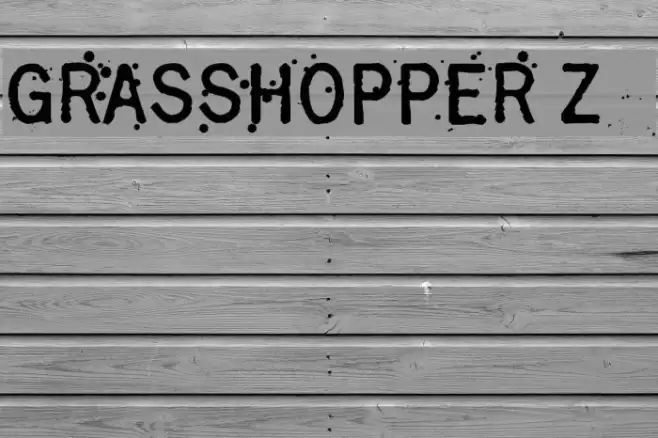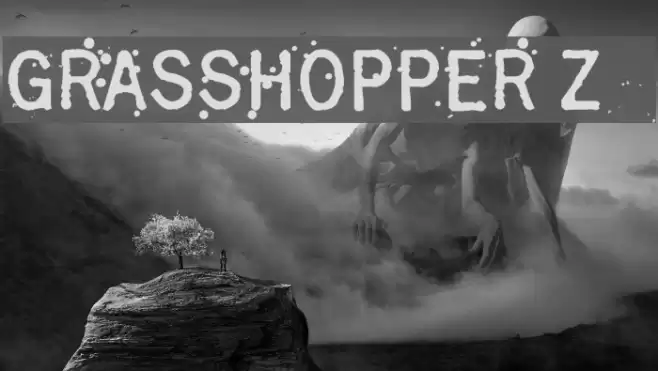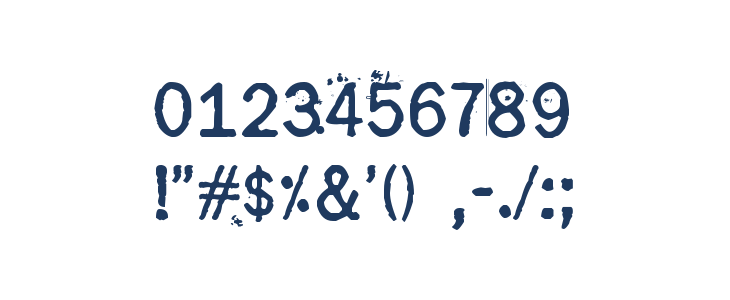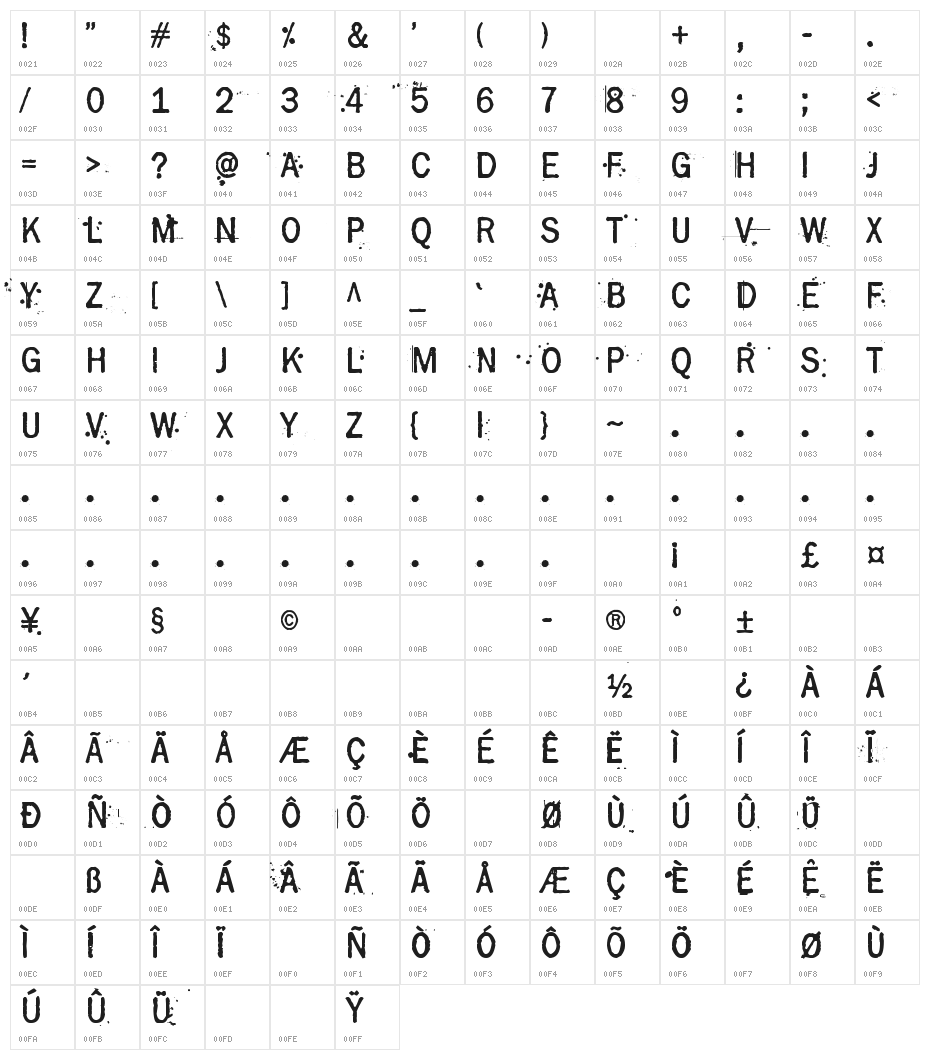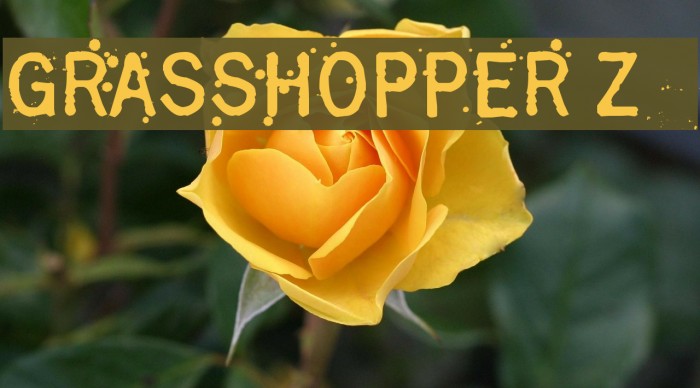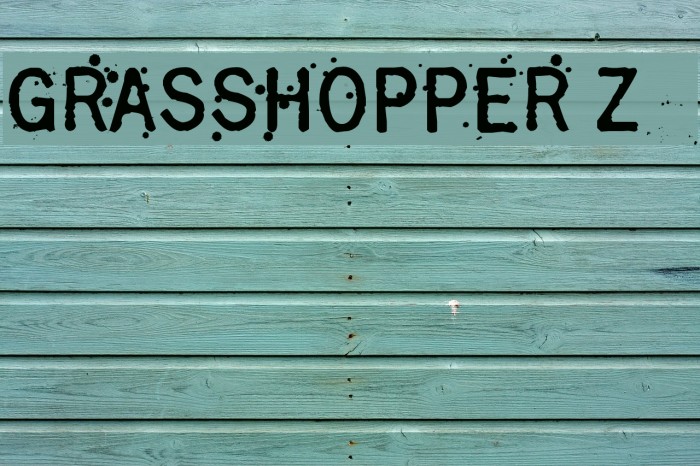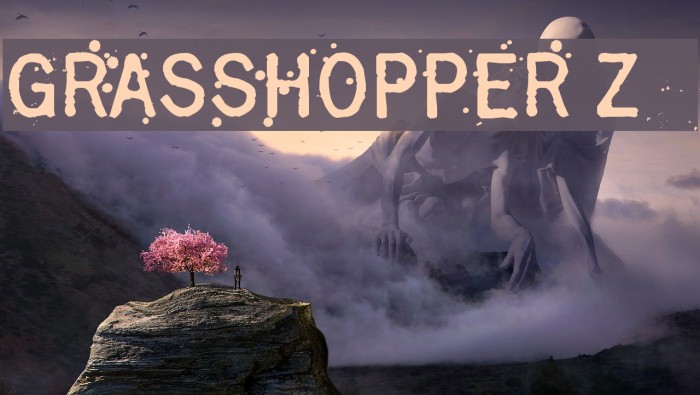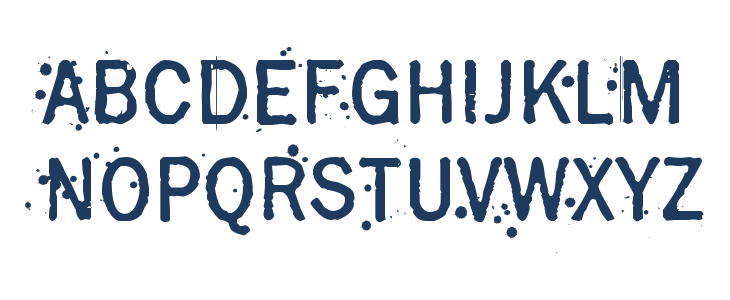
Grasshopper Z Font
Grasshopper Z Description
This font exhibits a distressed, grunge style with a rough, textured appearance. The characters are bold and impactful, featuring irregular edges and a worn-out look that adds a vintage, industrial feel. The uppercase letters are consistent in height, while the numbers and special characters maintain the same rugged aesthetic. The font's unique, weathered design makes it suitable for projects that require a raw, edgy vibe. Its boldness ensures readability, even with the distressed detailing, making it a versatile choice for creative designs.
A bold, distressed font with a grunge, vintage style from Distorted Eroded fonts.
- Proposed Projects: Ideal for album covers, posters, branding for edgy or alternative products, and any design needing a raw, industrial look.
- Overall Style: Vintage, Grunge